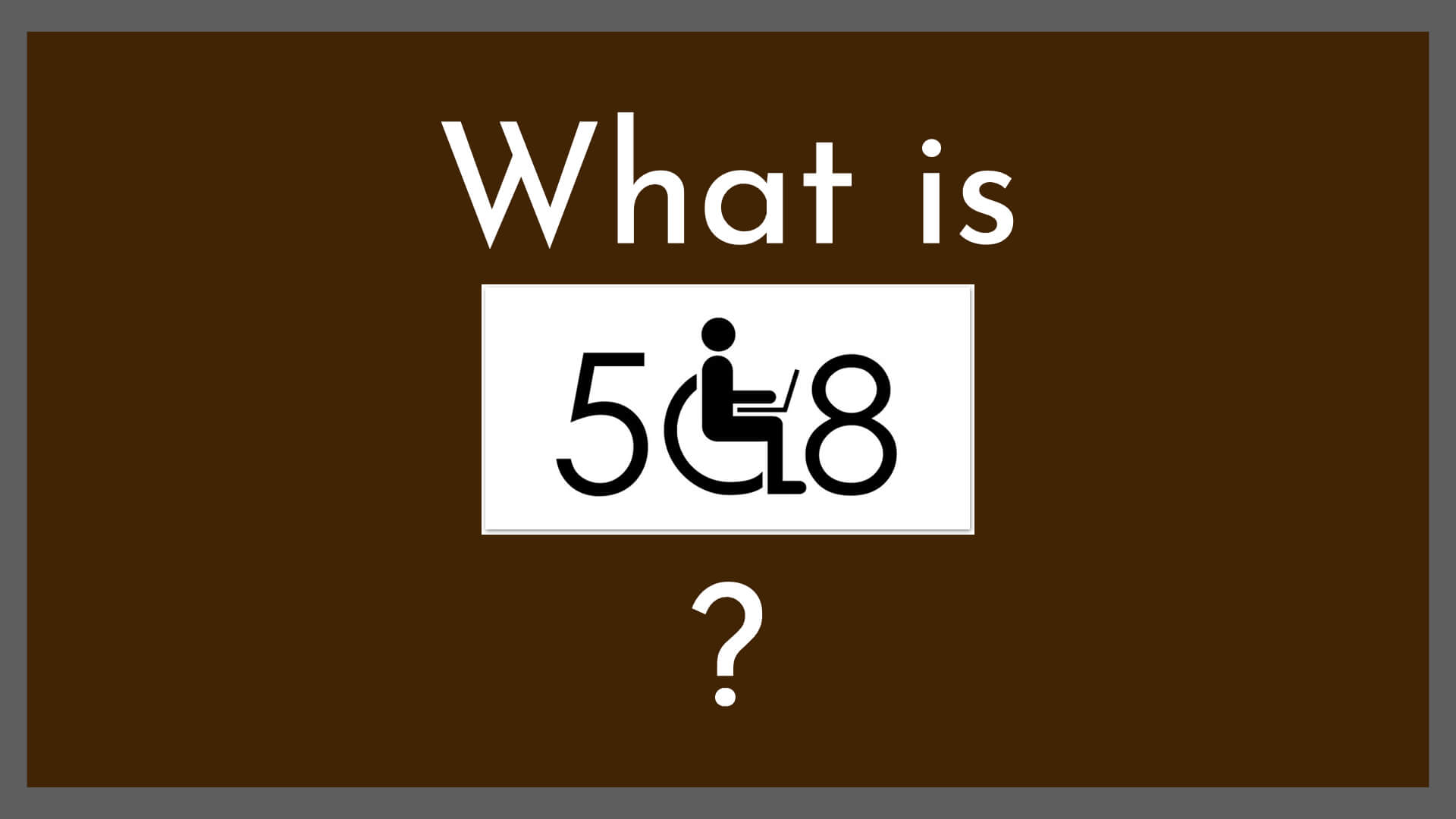
508 Compliant Font Size . Discover what fonts families and styles you can and can't use to fully comply with the americans with disabilities act. Except for captions and images of text, text can be resized without assistive technology up to 200 percent without loss of content or functionality. As a default, use an 18. The right font improves the legibility and readability of the document. First, neither web content accessibility guidelines (wcag) nor section 508 specifies typefaces nor even a minimum font size. Ensure that the font style, size, and color meet all section 508 requirements for readable body text. How to choose accessible fonts to achieve section 508 compliance. Section 508 best practice is to use a sans serif font, like helvetica or arial. They are composed of letters and characters that are easily. However, it’s usually recommended that you use at least 16px font for the body text. Examples include arial, calibri, century gothic, helvetica, tahoma, and verdana.
First, neither web content accessibility guidelines (wcag) nor section 508 specifies typefaces nor even a minimum font size. The right font improves the legibility and readability of the document. Discover what fonts families and styles you can and can't use to fully comply with the americans with disabilities act. How to choose accessible fonts to achieve section 508 compliance. Section 508 best practice is to use a sans serif font, like helvetica or arial. As a default, use an 18. However, it’s usually recommended that you use at least 16px font for the body text. Examples include arial, calibri, century gothic, helvetica, tahoma, and verdana. Ensure that the font style, size, and color meet all section 508 requirements for readable body text. They are composed of letters and characters that are easily.
508 Compliant Font Size How to choose accessible fonts to achieve section 508 compliance. First, neither web content accessibility guidelines (wcag) nor section 508 specifies typefaces nor even a minimum font size. Except for captions and images of text, text can be resized without assistive technology up to 200 percent without loss of content or functionality. As a default, use an 18. However, it’s usually recommended that you use at least 16px font for the body text. Examples include arial, calibri, century gothic, helvetica, tahoma, and verdana. How to choose accessible fonts to achieve section 508 compliance. They are composed of letters and characters that are easily. The right font improves the legibility and readability of the document. Ensure that the font style, size, and color meet all section 508 requirements for readable body text. Discover what fonts families and styles you can and can't use to fully comply with the americans with disabilities act. Section 508 best practice is to use a sans serif font, like helvetica or arial.
What is 508 Compliance and How it Applies to your Application or site 508 Compliant Font Size They are composed of letters and characters that are easily. As a default, use an 18. How to choose accessible fonts to achieve section 508 compliance. Examples include arial, calibri, century gothic, helvetica, tahoma, and verdana. However, it’s usually recommended that you use at least 16px font for the body text. Section 508 best practice is to use a sans. 508 Compliant Font Size.
How to Choose Fonts in 2024 A Complete Guide accessiBe 508 Compliant Font Size They are composed of letters and characters that are easily. First, neither web content accessibility guidelines (wcag) nor section 508 specifies typefaces nor even a minimum font size. Discover what fonts families and styles you can and can't use to fully comply with the americans with disabilities act. The right font improves the legibility and readability of the document. Except. 508 Compliant Font Size.
508 Compliance and the NPS Using Word to Create a 508 Compliant PDF 508 Compliant Font Size Discover what fonts families and styles you can and can't use to fully comply with the americans with disabilities act. Section 508 best practice is to use a sans serif font, like helvetica or arial. Examples include arial, calibri, century gothic, helvetica, tahoma, and verdana. As a default, use an 18. They are composed of letters and characters that are. 508 Compliant Font Size.
ADA Section 508 Compliance Cheat Sheet 508 Compliant Font Size First, neither web content accessibility guidelines (wcag) nor section 508 specifies typefaces nor even a minimum font size. Except for captions and images of text, text can be resized without assistive technology up to 200 percent without loss of content or functionality. Examples include arial, calibri, century gothic, helvetica, tahoma, and verdana. How to choose accessible fonts to achieve section. 508 Compliant Font Size.
508 compliant font size 508 Compliant Font Size Examples include arial, calibri, century gothic, helvetica, tahoma, and verdana. As a default, use an 18. Except for captions and images of text, text can be resized without assistive technology up to 200 percent without loss of content or functionality. They are composed of letters and characters that are easily. Section 508 best practice is to use a sans serif. 508 Compliant Font Size.
508 compliant font size 508 Compliant Font Size Except for captions and images of text, text can be resized without assistive technology up to 200 percent without loss of content or functionality. As a default, use an 18. The right font improves the legibility and readability of the document. However, it’s usually recommended that you use at least 16px font for the body text. Discover what fonts families. 508 Compliant Font Size.
It’s required that being responsible for your business related website 508 Compliant Font Size Ensure that the font style, size, and color meet all section 508 requirements for readable body text. First, neither web content accessibility guidelines (wcag) nor section 508 specifies typefaces nor even a minimum font size. The right font improves the legibility and readability of the document. How to choose accessible fonts to achieve section 508 compliance. Except for captions and. 508 Compliant Font Size.
Accessible Fonts for Section 508 Compliance 508 Compliant Font Size How to choose accessible fonts to achieve section 508 compliance. Examples include arial, calibri, century gothic, helvetica, tahoma, and verdana. Except for captions and images of text, text can be resized without assistive technology up to 200 percent without loss of content or functionality. Ensure that the font style, size, and color meet all section 508 requirements for readable body. 508 Compliant Font Size.